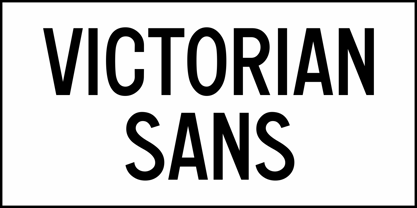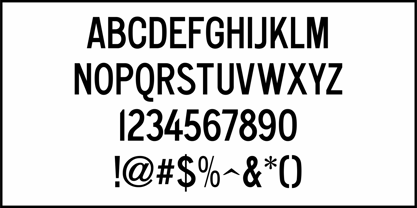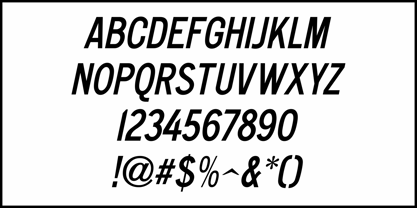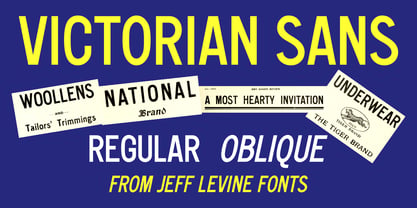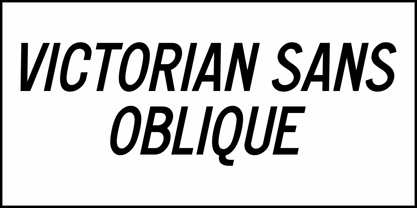
Victorian Sans JNL
by Jeff Levine
The Victorian Sans JNL Font Family was designed by Jeff Levine and published by Jeff Levine. Victorian Sans JNL contains 2 styles and family package options. More about this family
Victorian Sans JNL is available in both regular and oblique versions and is based on one of the numerous versions of Philadelphia Lining Gothic; originally released around 1895 byMacKellar, Smiths & Jordan.
In the days of letterpress, a lining type face had it's numerals line up with the cap height and base line of the design. Many other designs of the time used 'old style' numerals which would extend below the base line.